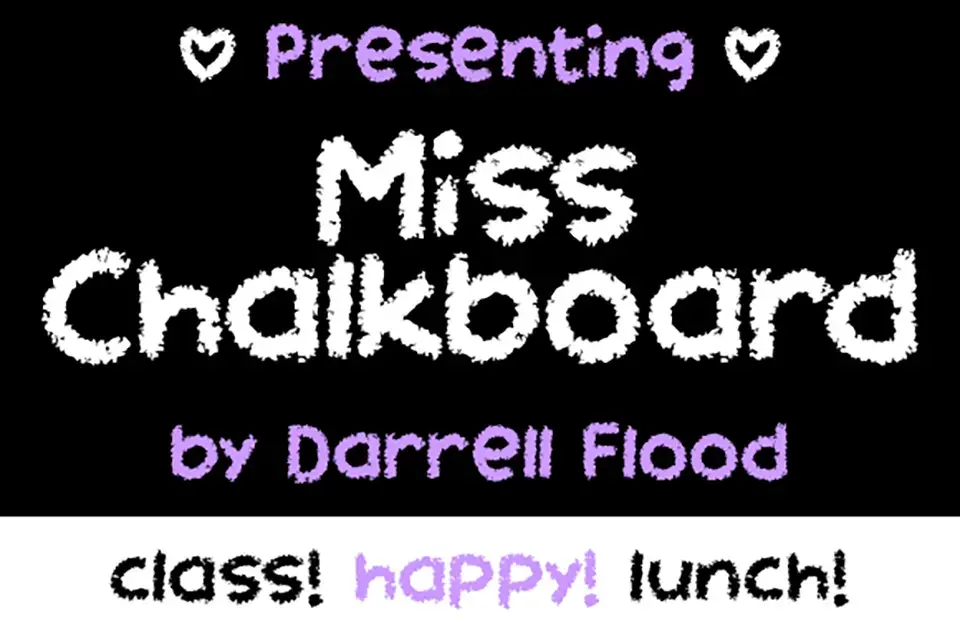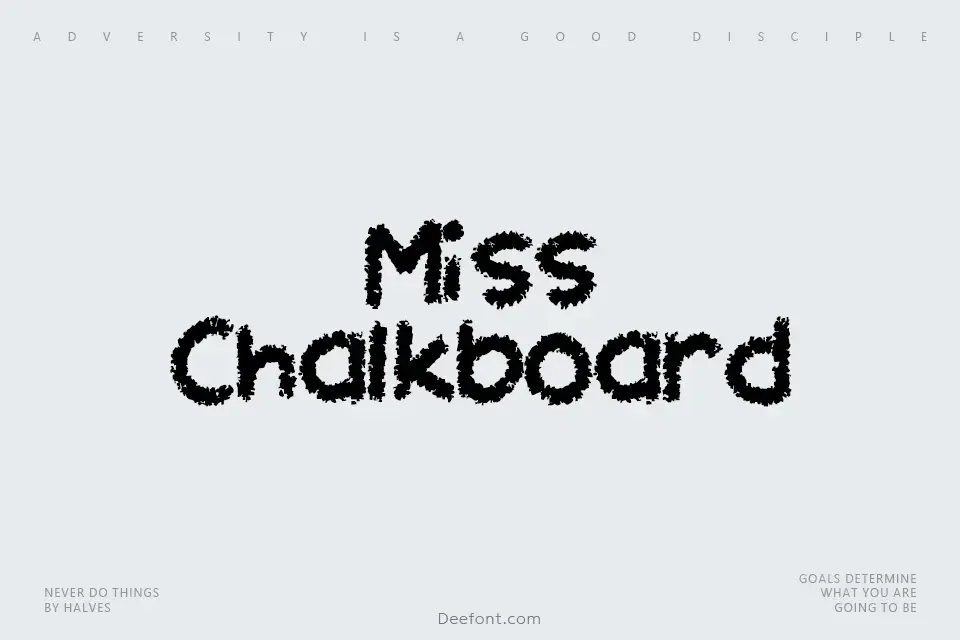
Miss Chalkboard Font
Unleash creativity with the Miss Chalkboard Font, a texture-rich design that captures the authentic feel of classroom nostalgia. Created by Darrell Flood, this handwritten script features rough edges and a dusty, chalk-like finish, making it ideal for educational posters, rustic café menus, and playful DIY crafts. Its casual, bouncy flow adds a personalized touch to any project requiring a school-days aesthetic.